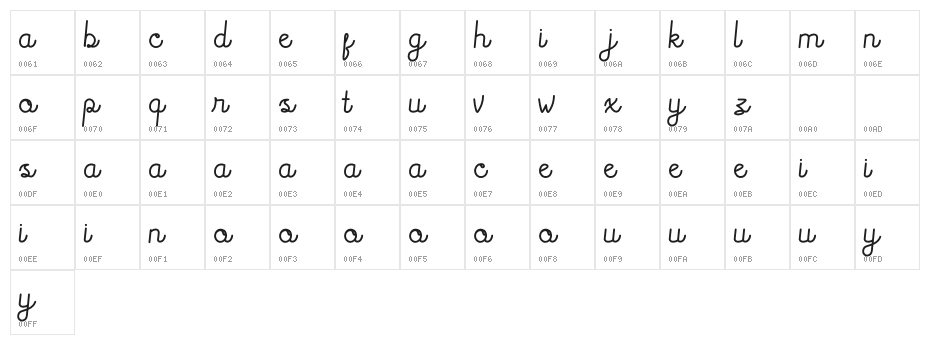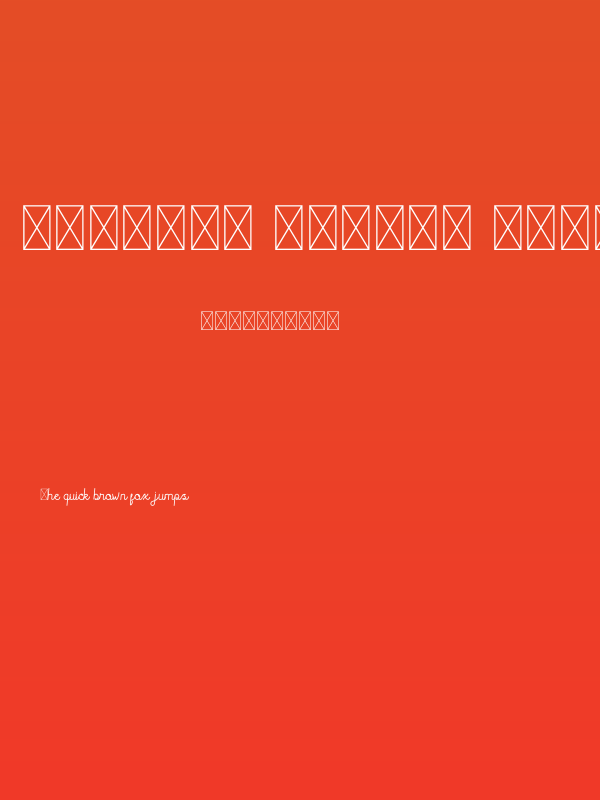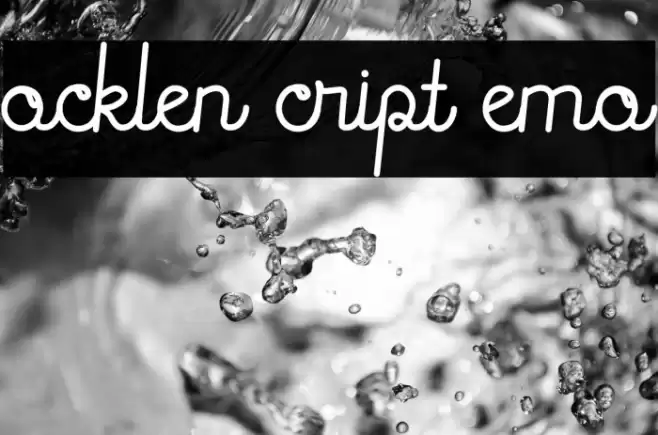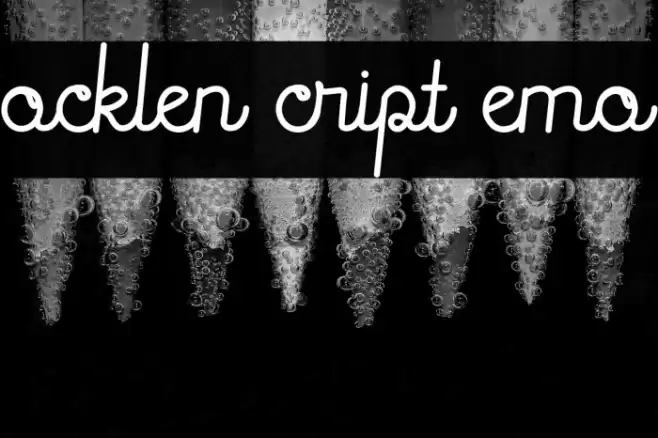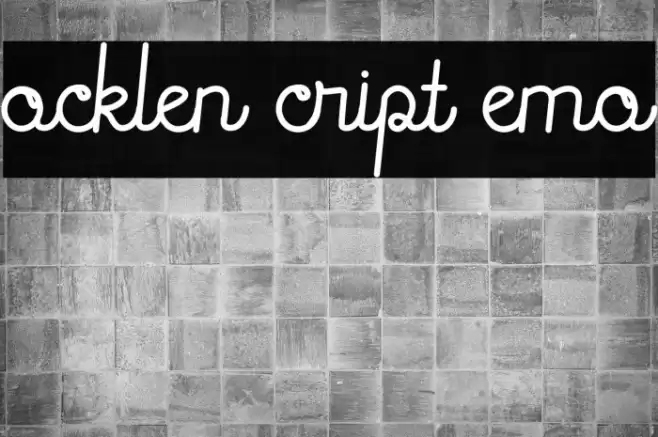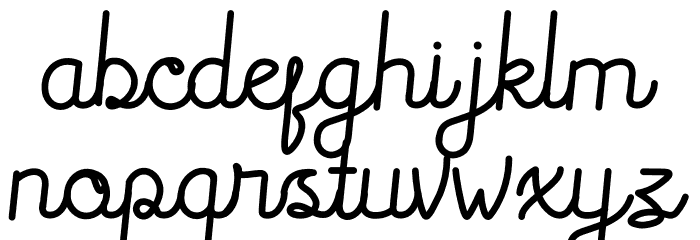
Rocklen Script Demo Font
Rocklen Script Demo Description
This font features a smooth, flowing script style that mimics natural handwriting. Each letter is connected, creating a seamless and elegant appearance. The lowercase letters have a consistent baseline, while the ascenders and descenders are gracefully elongated, adding to the font's fluidity. The strokes are uniform in thickness, providing a balanced and harmonious look. This script font is both casual and sophisticated, making it versatile for various design applications.
| Overall Style | Elegant, Casual |
| Use Case | Logos, Invitations, Personal Branding |
| Proposed Projects | Ideal for wedding invitations, greeting cards, personal branding, and elegant logos. |